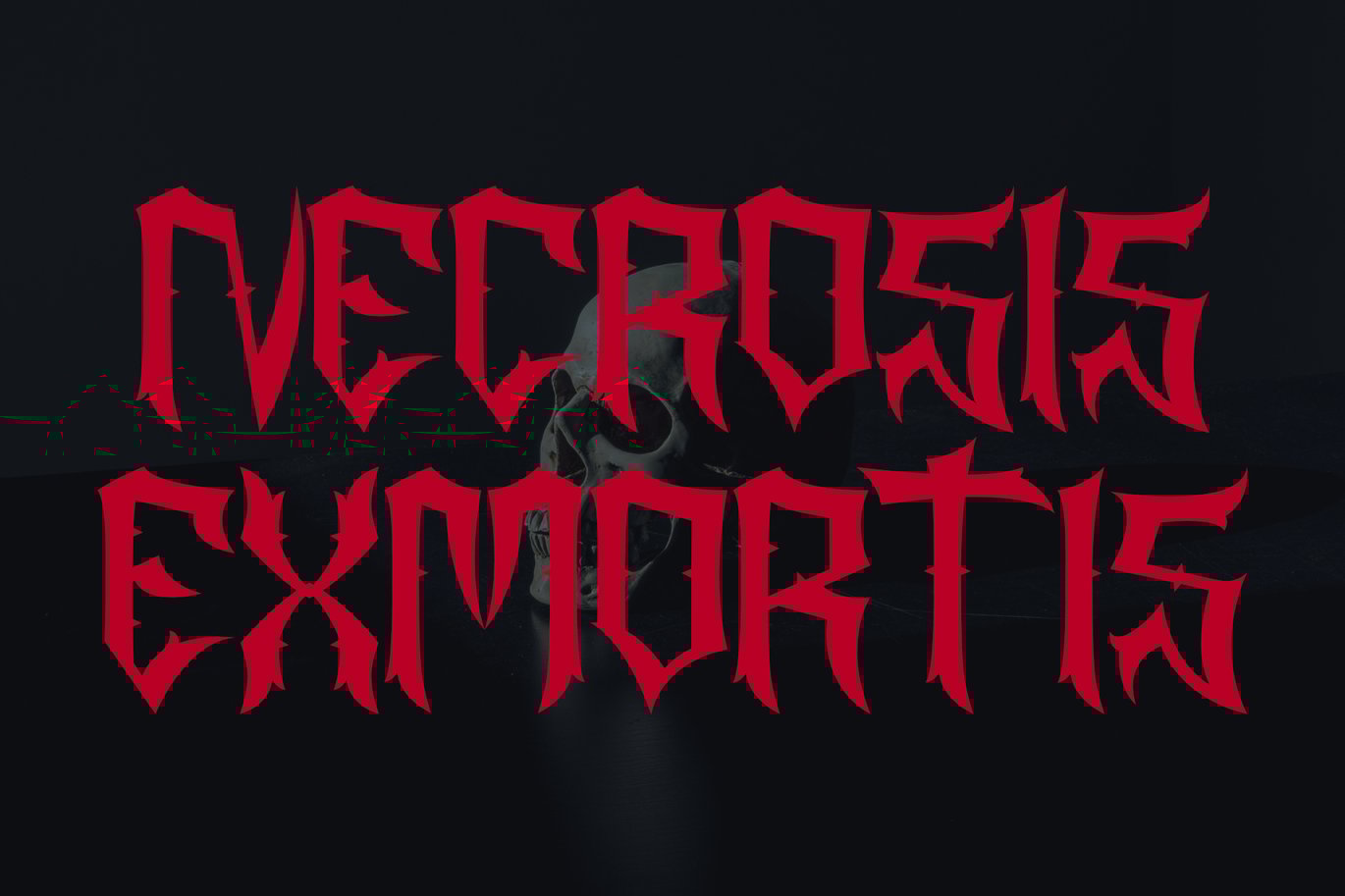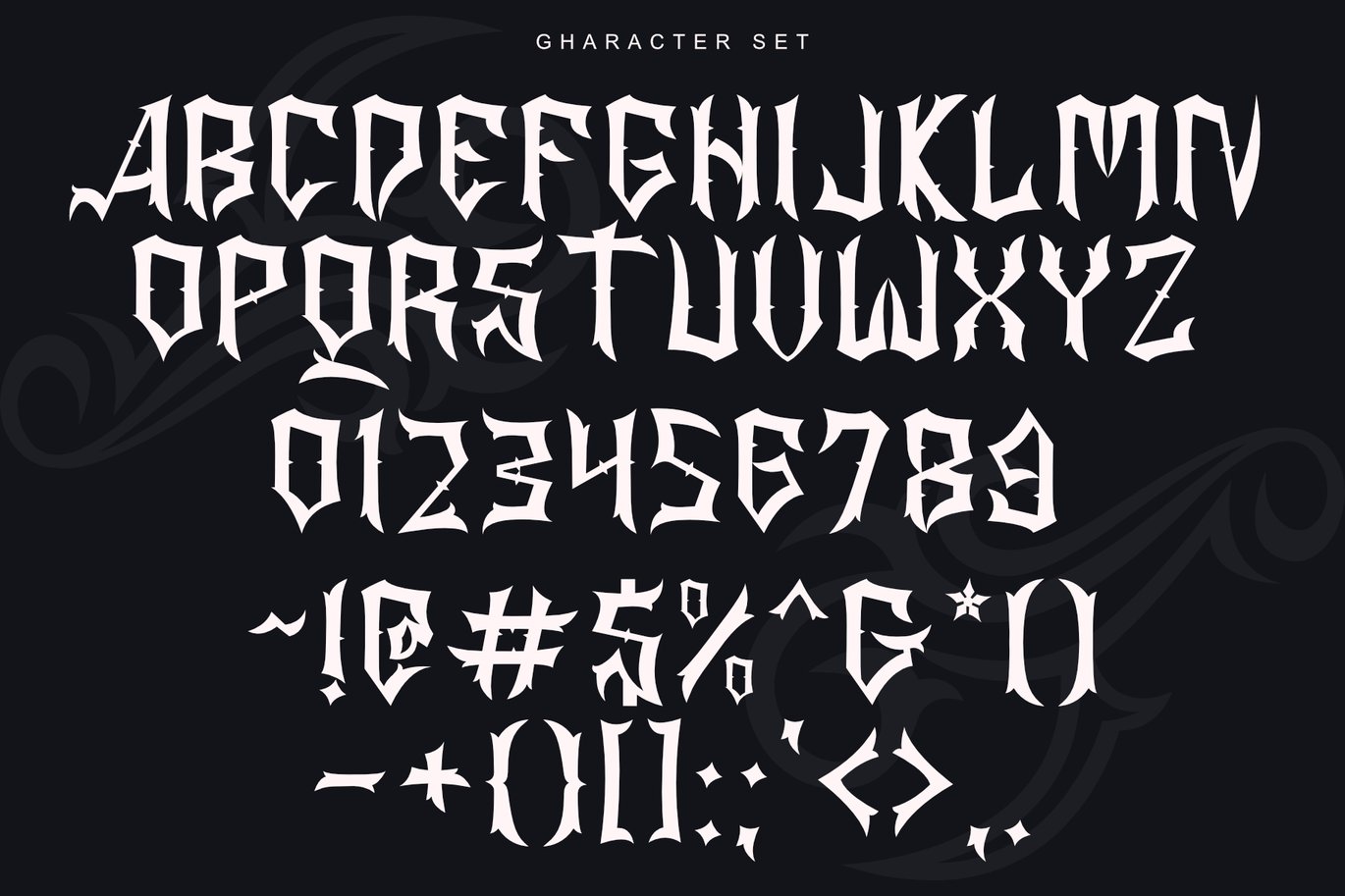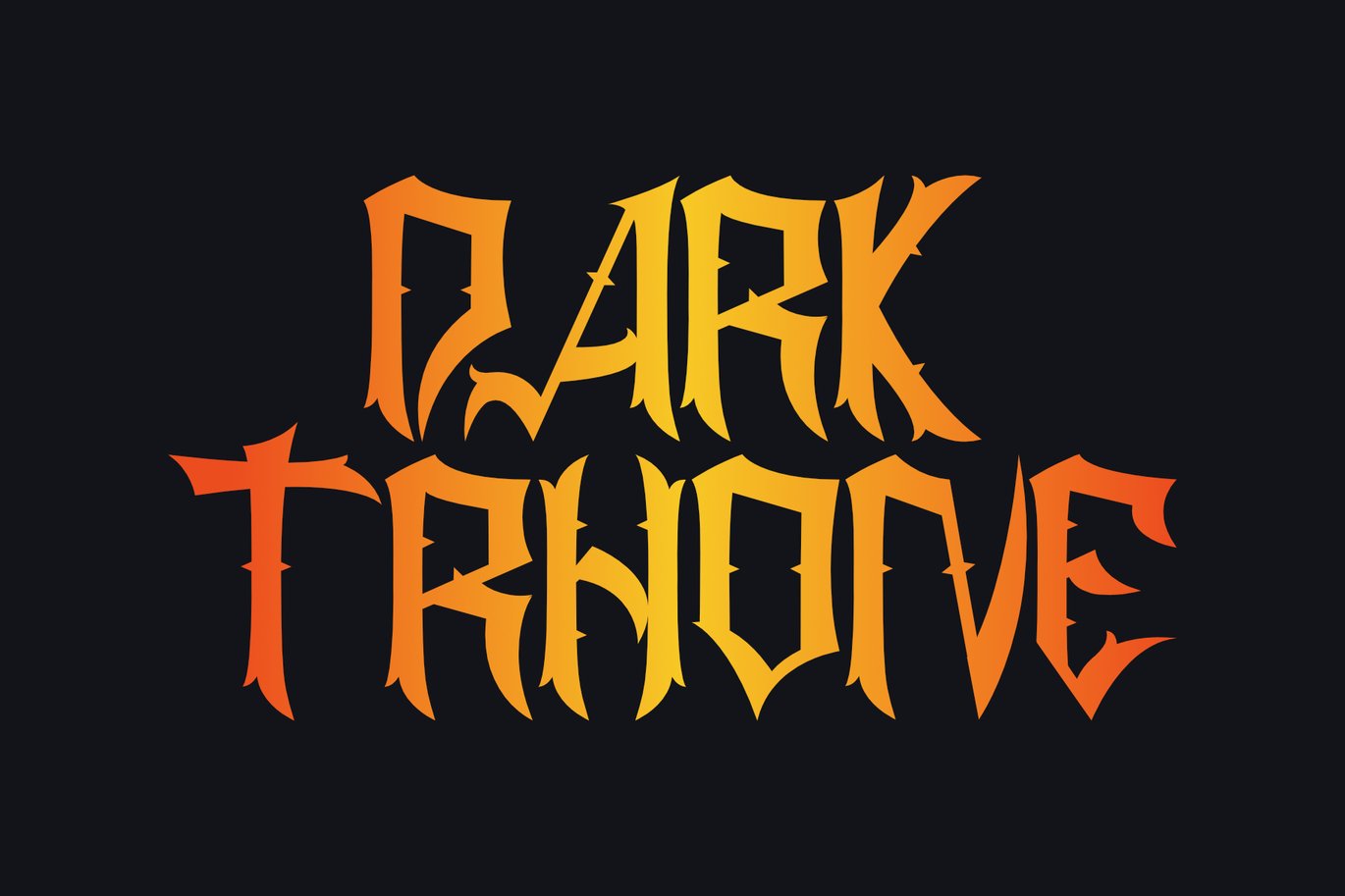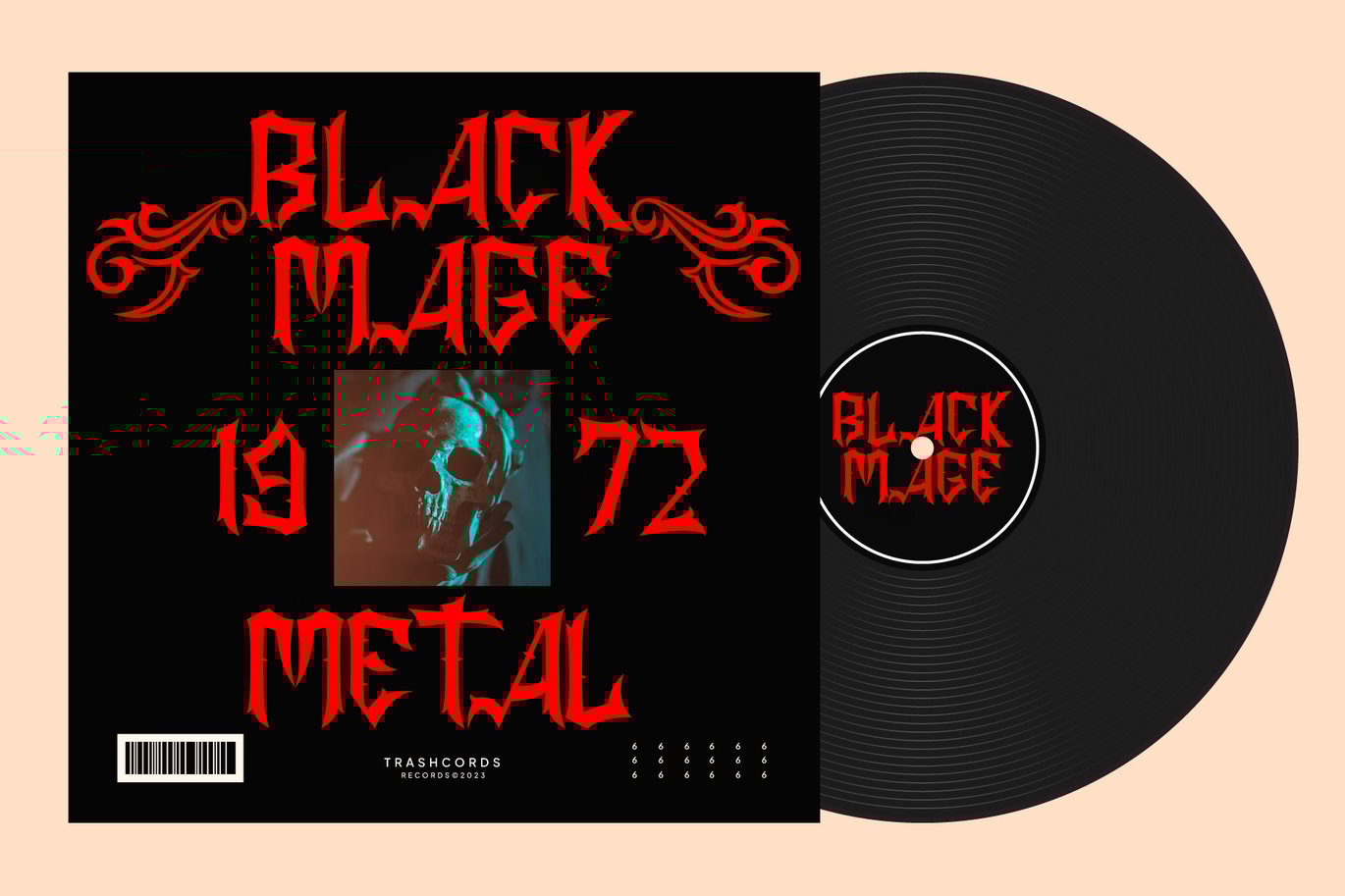
Asgore|Death Metal Typeface
“Unleash the raw power of metal with our Death Metal font. Inspired by the intense energy and dark aesthetic of the metal genre, this font features sharp, jagged edges and a bold, aggressive style that commands attention. Perfect for album covers, band logos, and merch designs, this font will help you capture the essence of metal in your projects. Whether you’re creating a poster for a concert or designing a t-shirt for your band, our Death Metal font will give your work a fierce, edgy look that is sure to stand out.”
Asgore is packed with features, including:
- Alternate Characters: A variety of alternates to add flair and uniqueness to your text.
- Multilingual Support: Supports multiple languages, making it suitable for global projects.